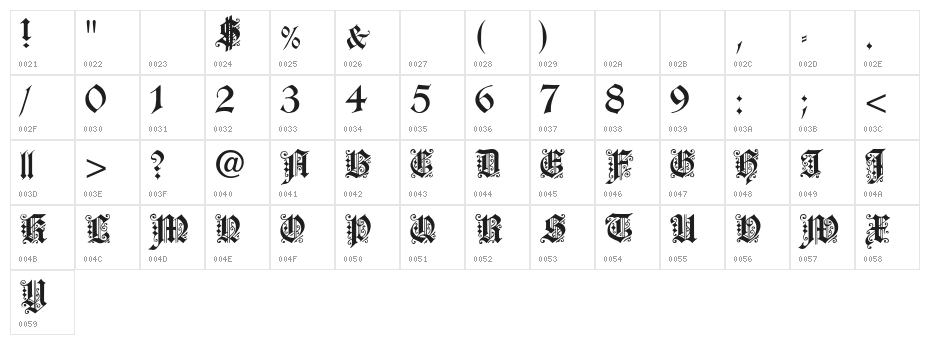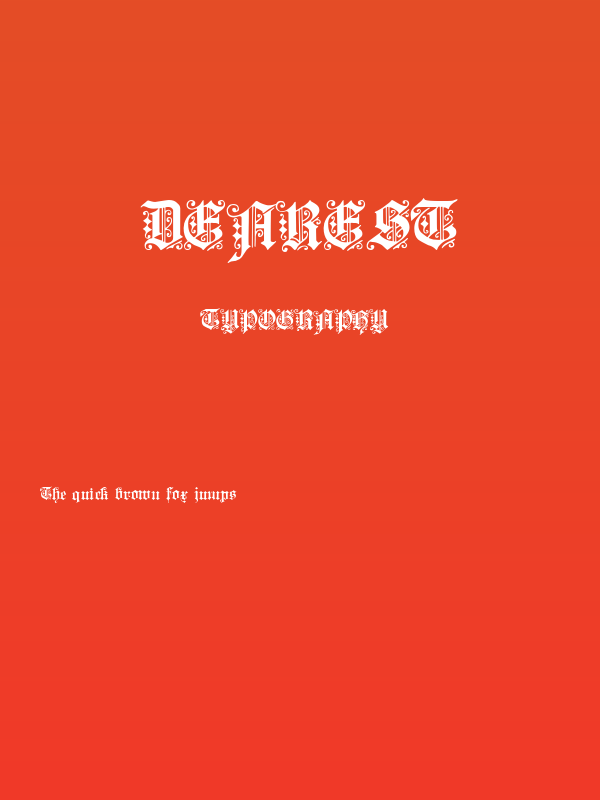
Dearest Font
Dearest Description
This font is a classic example of Blackletter style, characterized by its ornate and intricate design. The uppercase letters feature elaborate flourishes and sharp, angular lines, while the lowercase letters maintain a more streamlined yet still decorative appearance. The numerals are bold and distinct, with a consistent thickness that complements the overall aesthetic. Special characters are equally detailed, adding to the font's historical and traditional feel. The font's design evokes a sense of medieval manuscripts, making it suitable for projects that require a touch of elegance and antiquity.
| Use Case | Logos, Headlines, Decorative purposes |
| Proposed Projects | Ideal for historical documents, wedding invitations, certificates, and branding that requires a classic touch. |